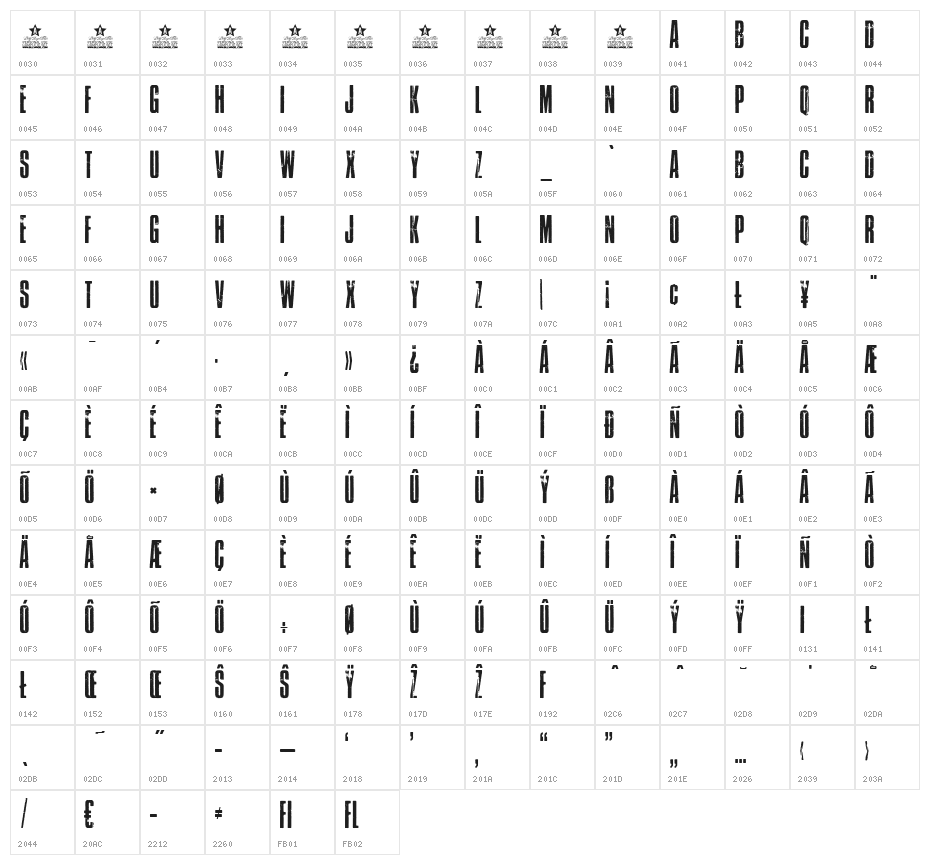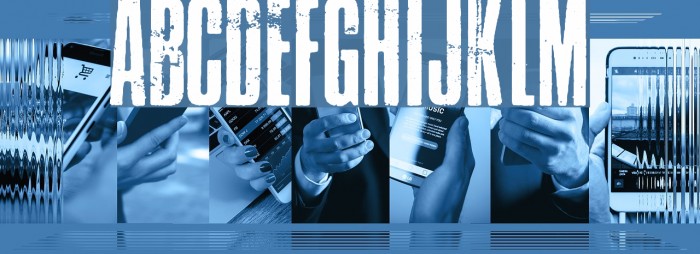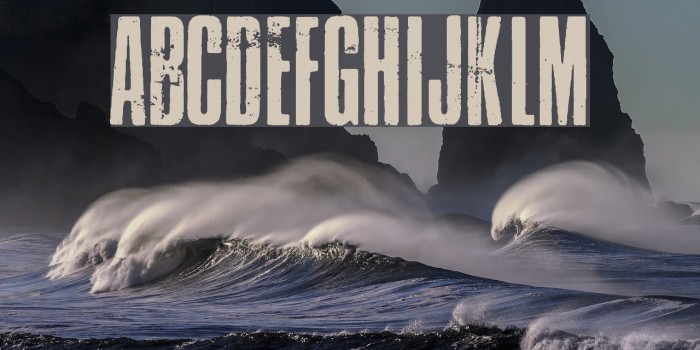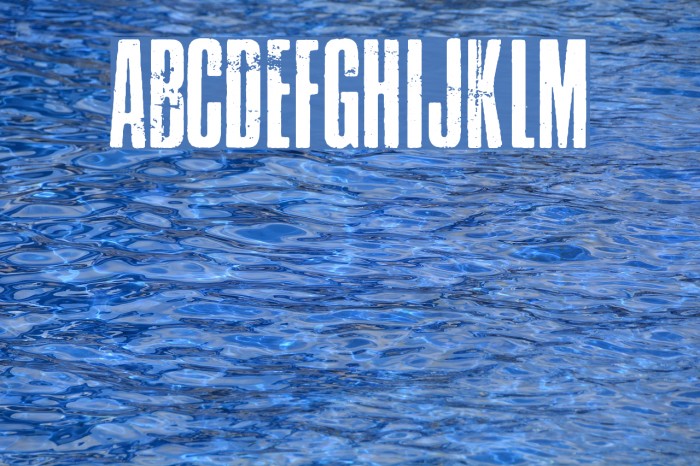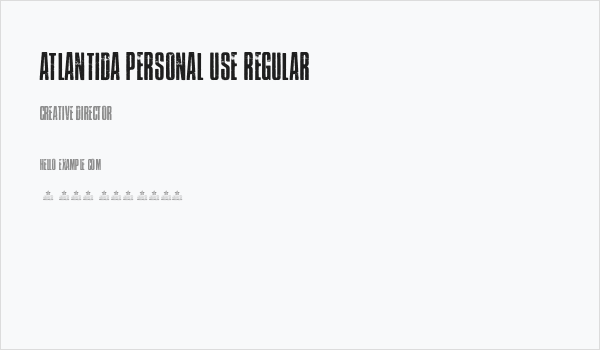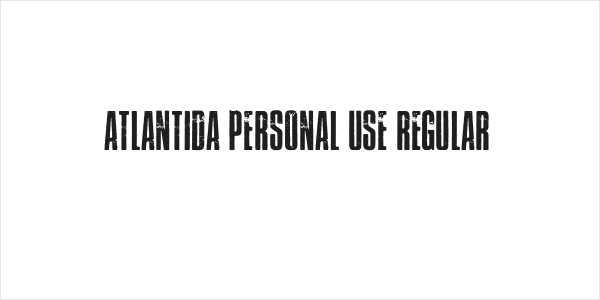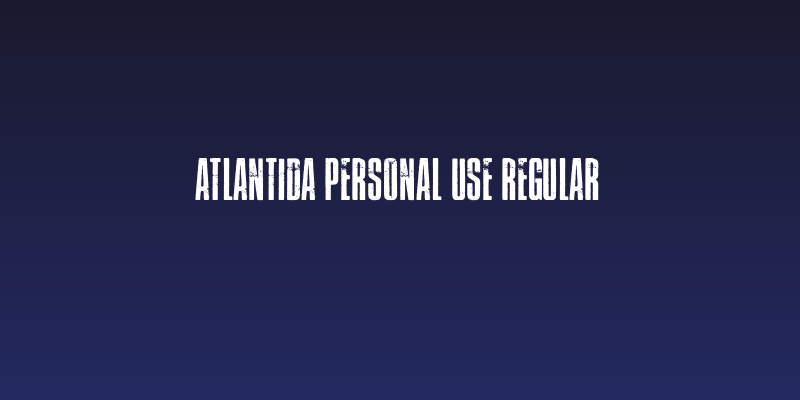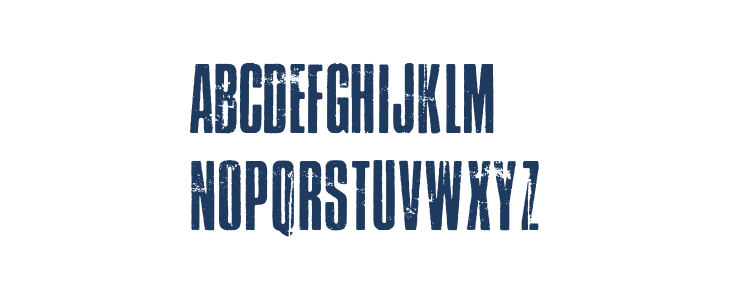
Atlantida PERSONAL USE Regular Font
Atlantida PERSONAL USE Regular Description
This font features a bold, distressed style with a rugged texture that gives it a worn, vintage appearance. The uppercase letters are prominently displayed, showcasing a strong and impactful design. The texture adds depth and character, making it ideal for projects that require a gritty, industrial feel. The characters are evenly spaced, maintaining readability while emphasizing the boldness of each letter. This font is perfect for creating eye-catching headlines or logos that need a touch of edginess and personality.
| Proposed Projects | Ideal for posters, logos, album covers, and branding that requires a bold, vintage look. |